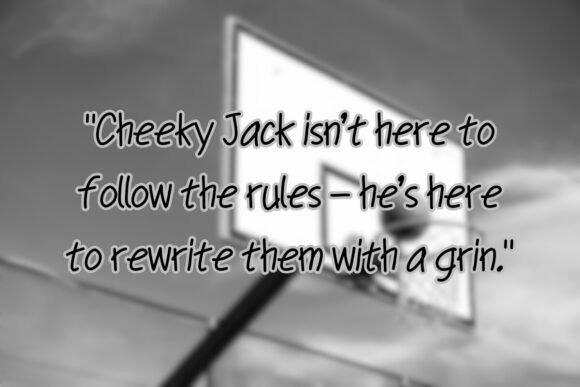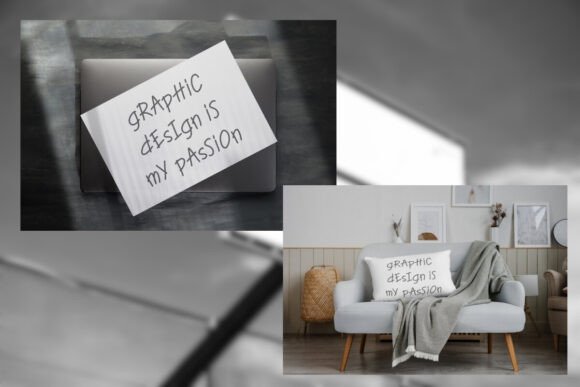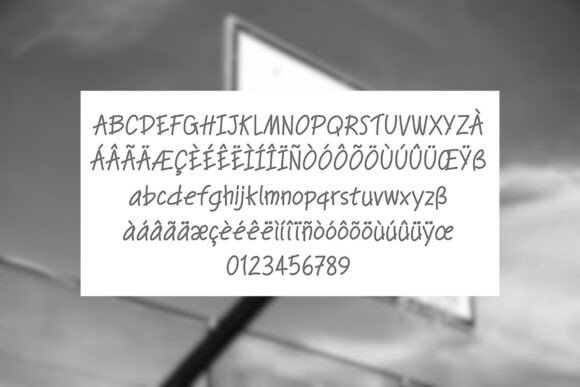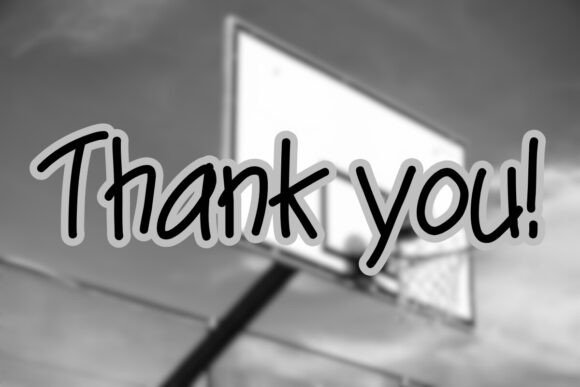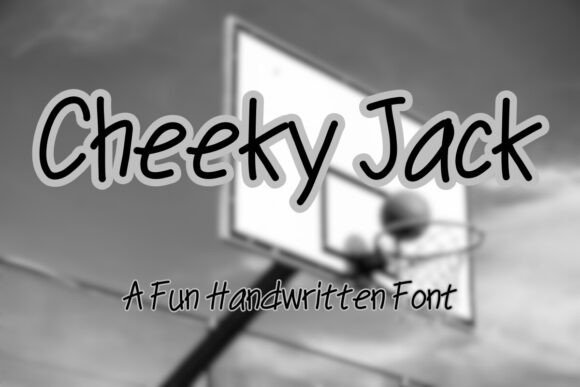
Introducing Cheeky Jack Font: Add a Playful Touch to Your Designs
Are you tired of using the same old fonts in your creative projects? Look no further than Cheeky Jack, a unique handwritten font that’s designed to bring fun and playfulness to your designs. With its distinct and easy-to-read lettering, Cheeky Jack is perfect for adding a friendly and lively touch to any project.
What Makes Cheeky Jack Special?
Cheeky Jack is a one-of-a-kind font that’s specifically designed to add a touch of whimsy and charm to your designs. Its handwritten style gives it a personal and approachable feel, making it perfect for casual and informal designs. Whether you’re creating posters, cards, logos, or social media graphics, Cheeky Jack is sure to make your designs stand out.
Cheeky Jack is a versatile font that works beautifully for a wide range of design projects. Its playful and cheerful vibe makes it perfect for:
- Posters and flyers: Add a pop of personality to your posters and flyers with Cheeky Jack’s fun and playful lettering.
- Cards and invitations: Make your cards and invitations extra special with Cheeky Jack’s unique and charming style.
- Logos and branding: Use Cheeky Jack to create a memorable and eye-catching logo that reflects your brand’s personality.
- Social media graphics: Add a touch of whimsy to your social media graphics and make them stand out in a crowded feed.
Why Choose Cheeky Jack?
So why choose Cheeky Jack over other fonts? Here are just a few reasons:
- Unique and distinctive: Cheeky Jack’s handwritten style sets it apart from other fonts and makes it instantly recognizable.
- Easy to read: Despite its playful style, Cheeky Jack is easy to read and understand, making it perfect for both print and digital designs.
- Versatile: Cheeky Jack works beautifully for a wide range of design projects, from casual and informal designs to more formal and professional ones.
- Friendly and approachable: Cheeky Jack’s playful and cheerful vibe makes it perfect for designs that need to convey a friendly and approachable tone.
- Experiment with different colors: Cheeky Jack looks great in a variety of colors, so don’t be afraid to experiment and find the perfect hue for your design.
- Play with different sizes: Cheeky Jack works beautifully at a range of sizes, from small and delicate to large and bold.
- Combine with other fonts: Cheeky Jack pairs beautifully with other fonts, so try combining it with a serif or sans-serif font for added interest and contrast.
If you’re looking for a font that will add a touch of fun and playfulness to your designs, look no further than Cheeky Jack. With its unique and distinctive style, Cheeky Jack is perfect for a wide range of design projects, from casual and informal designs to more formal and professional ones. Download Cheeky Jack today and make your designs stand out with a cheerful and creative vibe!